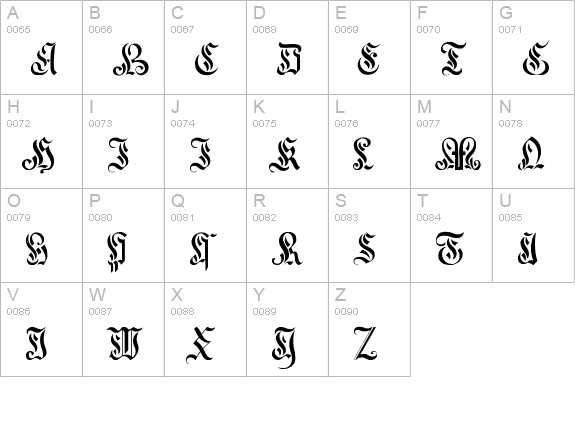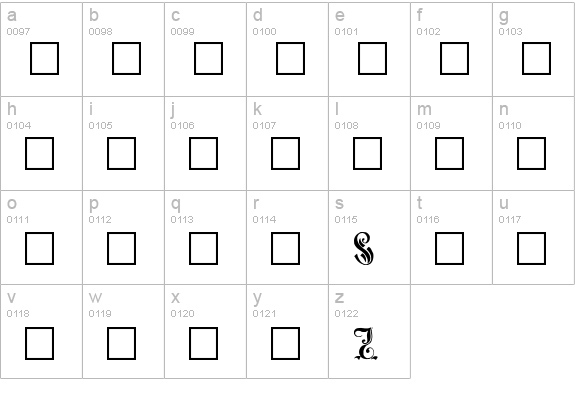
Elegant Capitals Font Details
Elegant Capitals font exudes sophistication and timeless elegance with its graceful strokes and refined design. This stunning typeface features beautifully crafted capital letters that are perfect for adding a touch of class to any project. The Elegant Capitals font is a versatile choice for a wide range of design applications, from invitations to branding to editorial design. And the best part? Elegant Capitals font is available for free download at FontsMarket.com. Now you can elevate your designs with this exquisite font without breaking the bank. Don't miss out on the opportunity to enhance your projects with the luxurious appeal of Elegant Capitals font. Download it today and add a touch of elegance to your designs.